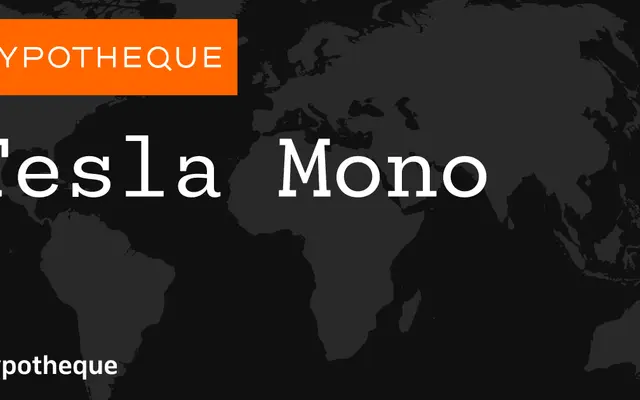
Tesla Mono
A monospaced type system from Typotheque with seven weights, matching italics, and companion slab, caps and stencil subfamilies.
Part of a broader Tesla system, the Mono cut offers seven weights from Hairline to Bold each with a corresponding italic, alongside a variable font version. The family extends into Tesla Slab, Tesla Caps and Tesla Stencil, giving the system considerable range across editorial, technical and display applications. Individual styles are named after cities, a Typotheque convention that reinforces the international character coverage the foundry is known for.
Tesla Mono is explicitly a monospaced typeface, part of a larger system including slab, caps and stencil variants, with consistent fixed-width spacing across all weights.